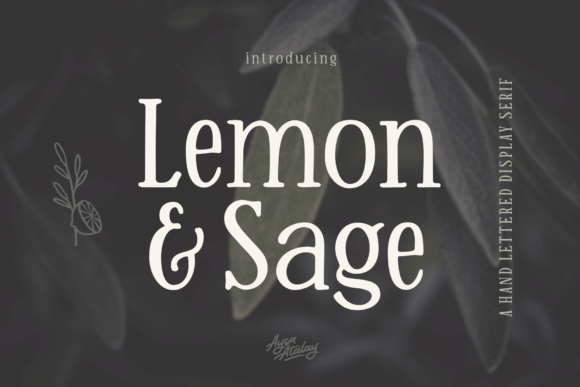
Introducing Lemon and Sage Font, the perfect choice for designers who are looking to add a touch of sophistication and charm to their projects. Created by Ayca Atalay, this serif font is specially designed for luxury, elegant, and feminine projects, making it the perfect fit for modern, chic designs.
Are you in search of the best fonts for small display? Look no further than Lemon and Sage Font! With its fashionable touch, this font is sure to captivate your audience and leave a lasting impression. Its unique and intricate details add an element of sophistication to any project, making it an ideal choice for logos, invitations, and branding materials.
Lemon and Sage Font is more than just a font, it's a statement. It exudes confidence, creativity, and elegance, making it the perfect choice for designers who want to stand out from the crowd. This font is perfect for fashion, beauty, lifestyle, and any other industry that requires a touch of sophistication.